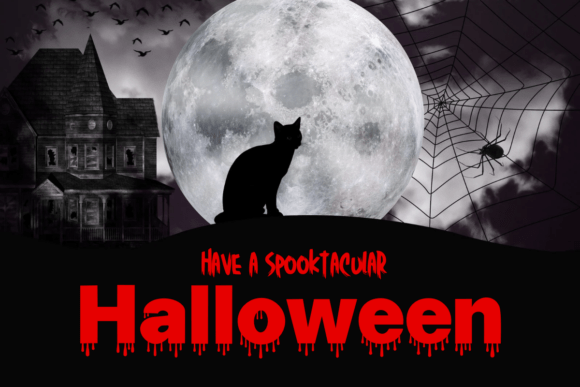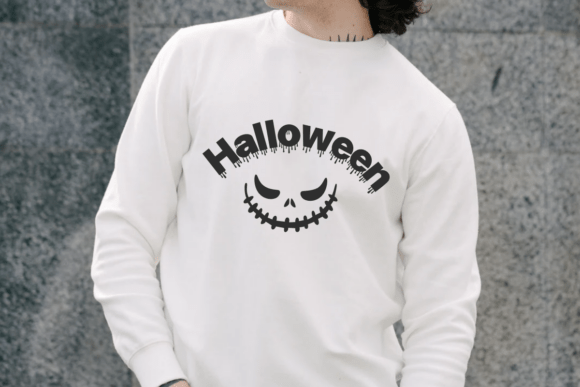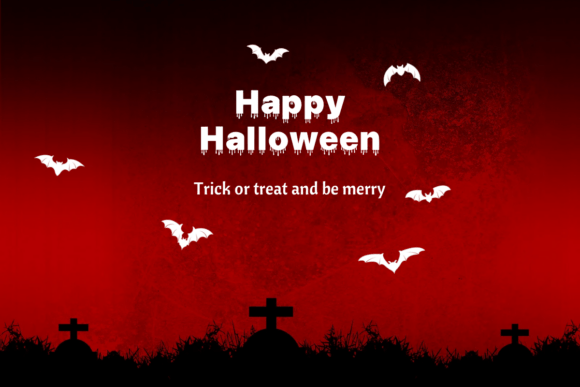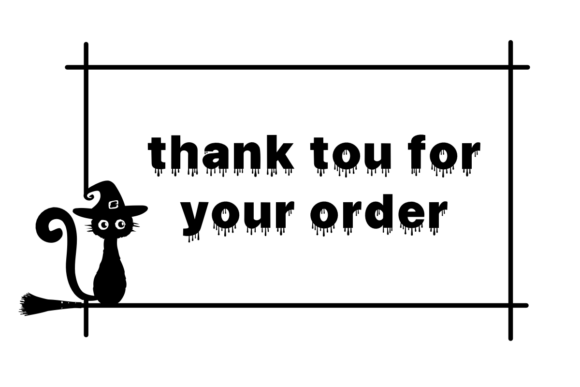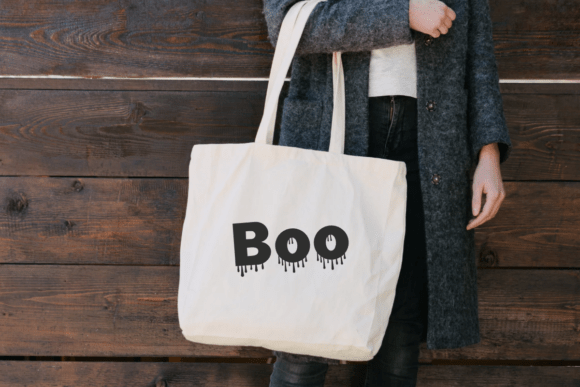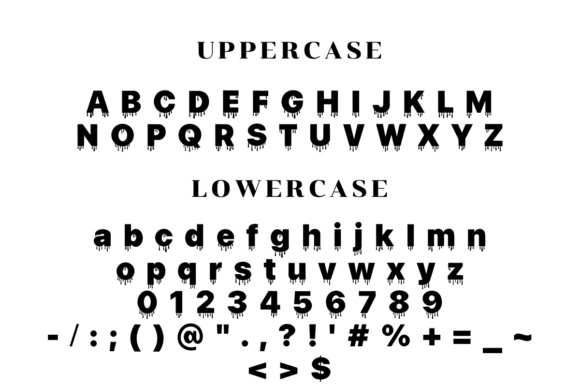
Unleash the Spookiness: Exploring the Dark Delight Font
Are you a designer or crafter looking for a font that adds a touch of spookiness to your projects? Look no further than the Dark Delight Font. This eerie display font is perfect for creating a range of designs, from creepy notes and diaries to haunting greeting cards and more. In this article, we’ll dive into the world of Dark Delight Font and explore its features, uses, and benefits.
What is Dark Delight Font?
Dark Delight Font is a unique and captivating display font designed to add a touch of spookiness to your projects. Its eerie and mysterious feel makes it perfect for Halloween-themed designs, horror-inspired art, and other creepy creations. The font’s distinctive style features bold lines, sharp edges, and an overall sense of foreboding, making it a standout choice for designers and crafters looking to create something truly eye-catching.
Uses of Dark Delight Font
While Dark Delight Font is ideal for creating spooky designs, its versatility means it can be used for a wide range of projects. Here are some ideas to get you started:
- Notes and Diaries: Add a touch of spookiness to your notes and diaries with Dark Delight Font. Perfect for fans of horror and the supernatural.
- Greeting Cards: Create haunting greeting cards for Halloween, birthdays, or other special occasions.
- Banners and Signs: Use Dark Delight Font to create eye-catching banners and signs for parties, events, or promotions.
- Mugs and Water Bottles: Add a spooky touch to your mugs and water bottles with Dark Delight Font.
- Social Media Posts: Use Dark Delight Font to create creepy social media posts that are sure to grab attention.
- Shirts and Apparel: Design spooky shirts, hoodies, and other apparel with Dark Delight Font.
- Stationery and Paper Crafts: Add a touch of eeriness to your stationery, paper crafts, and journal pages.
Benefits of Using Dark Delight Font
So why choose Dark Delight Font for your projects? Here are just a few benefits:
- Unique and Eye-Catching: Dark Delight Font is a one-of-a-kind font that adds a touch of spookiness to any design.
- Versatile: Use Dark Delight Font for a wide range of projects, from notes and diaries to banners and social media posts.
- High-Quality: Dark Delight Font is a high-quality font designed to produce crisp, clear results.
Tips for Using Dark Delight Font
To get the most out of Dark Delight Font, here are a few tips:
- Experiment with Colors: Try pairing Dark Delight Font with a range of colors to create different moods and effects.
- Mix and Match: Combine Dark Delight Font with other fonts and graphics to create unique and eye-catching designs.
- Play with Sizes: Experiment with different font sizes to create visual interest and hierarchy in your designs.